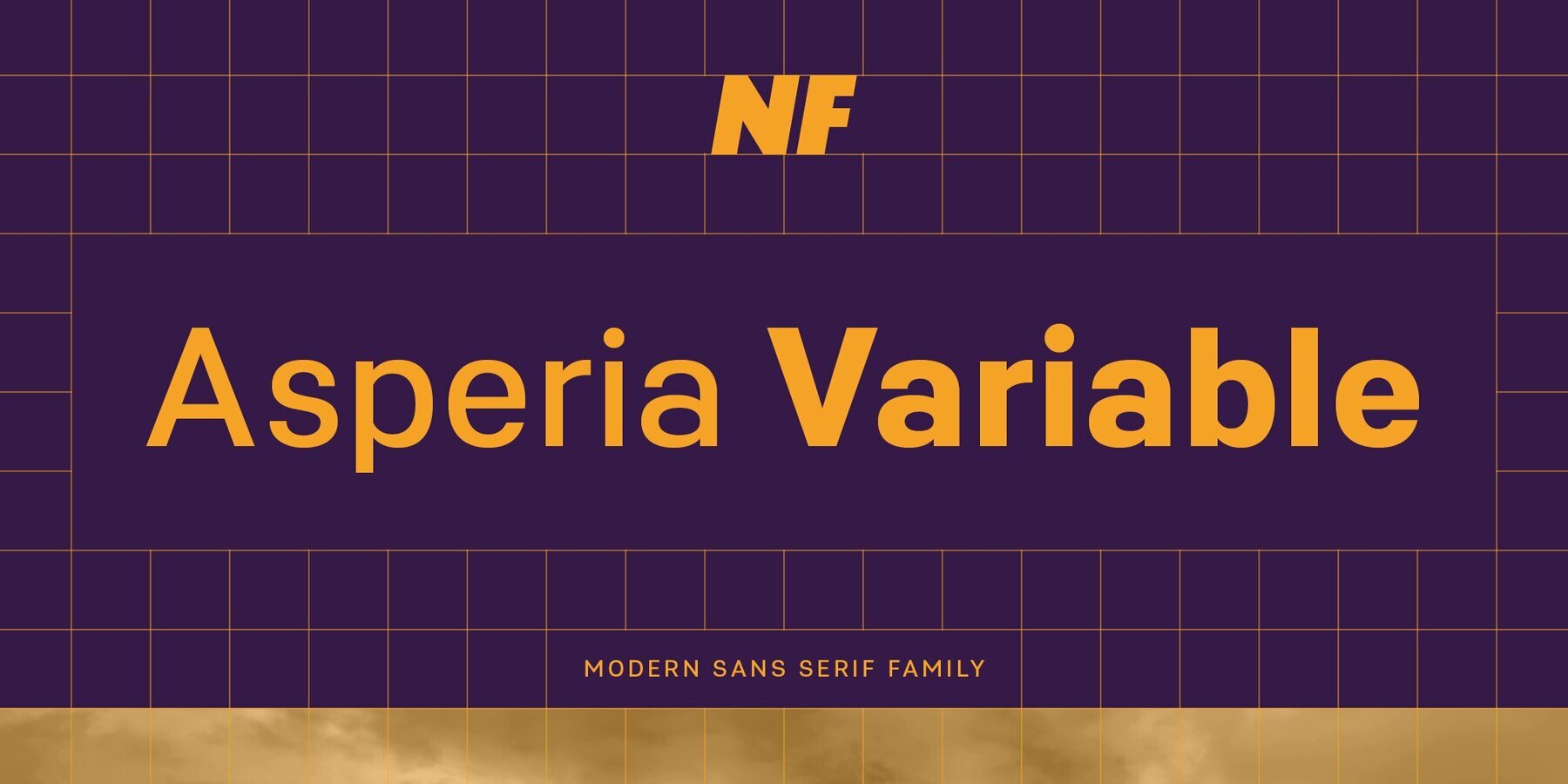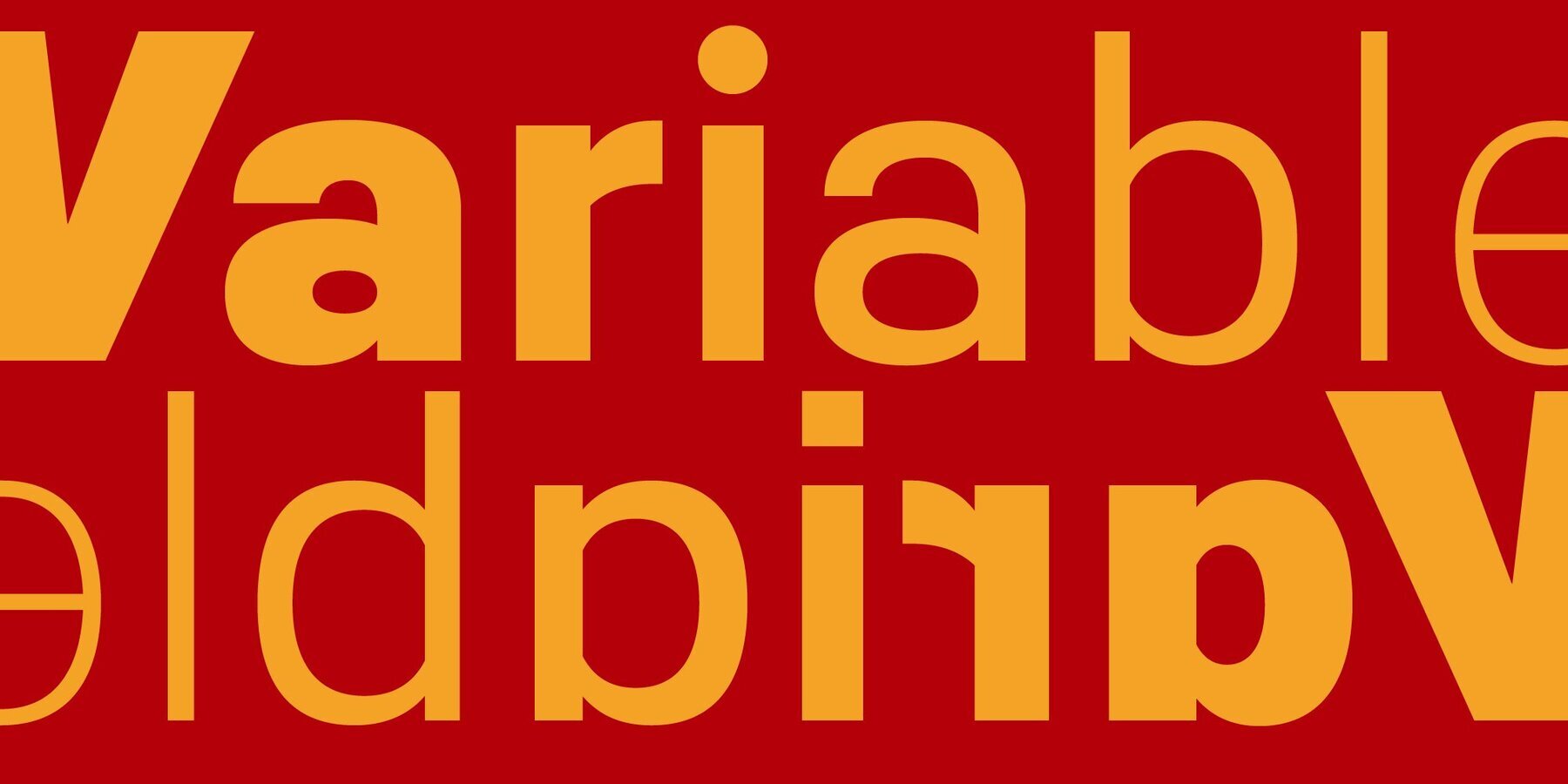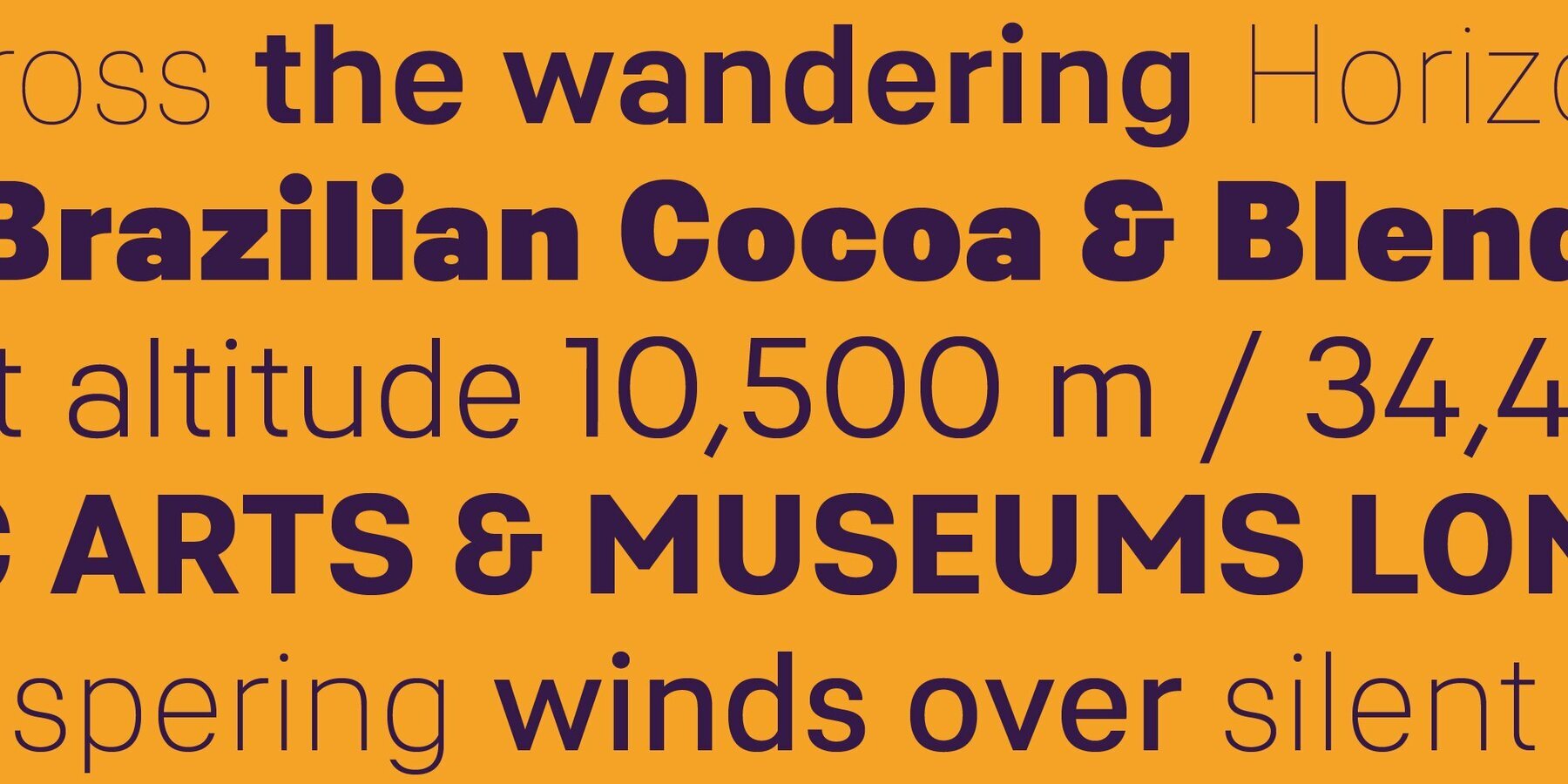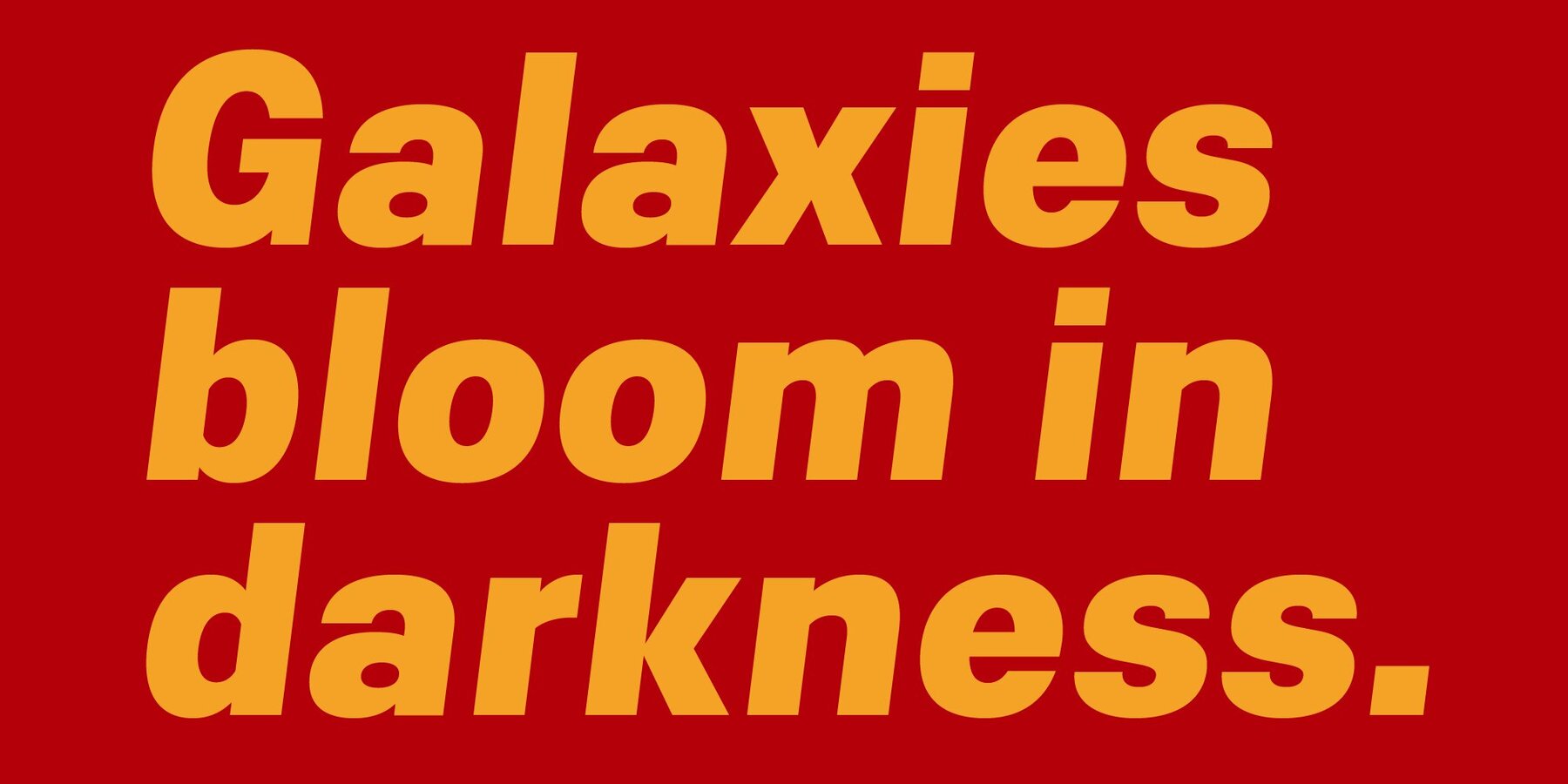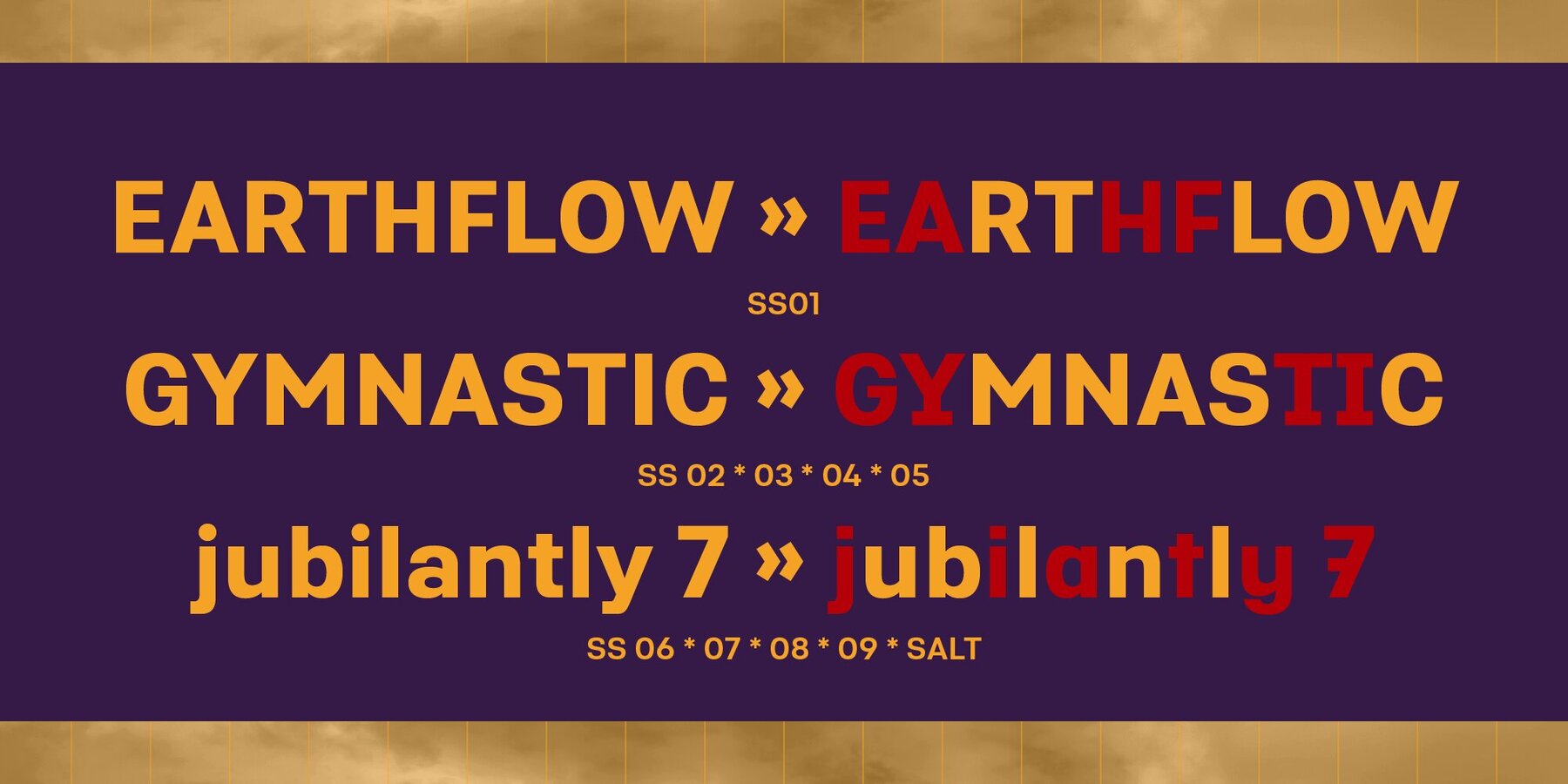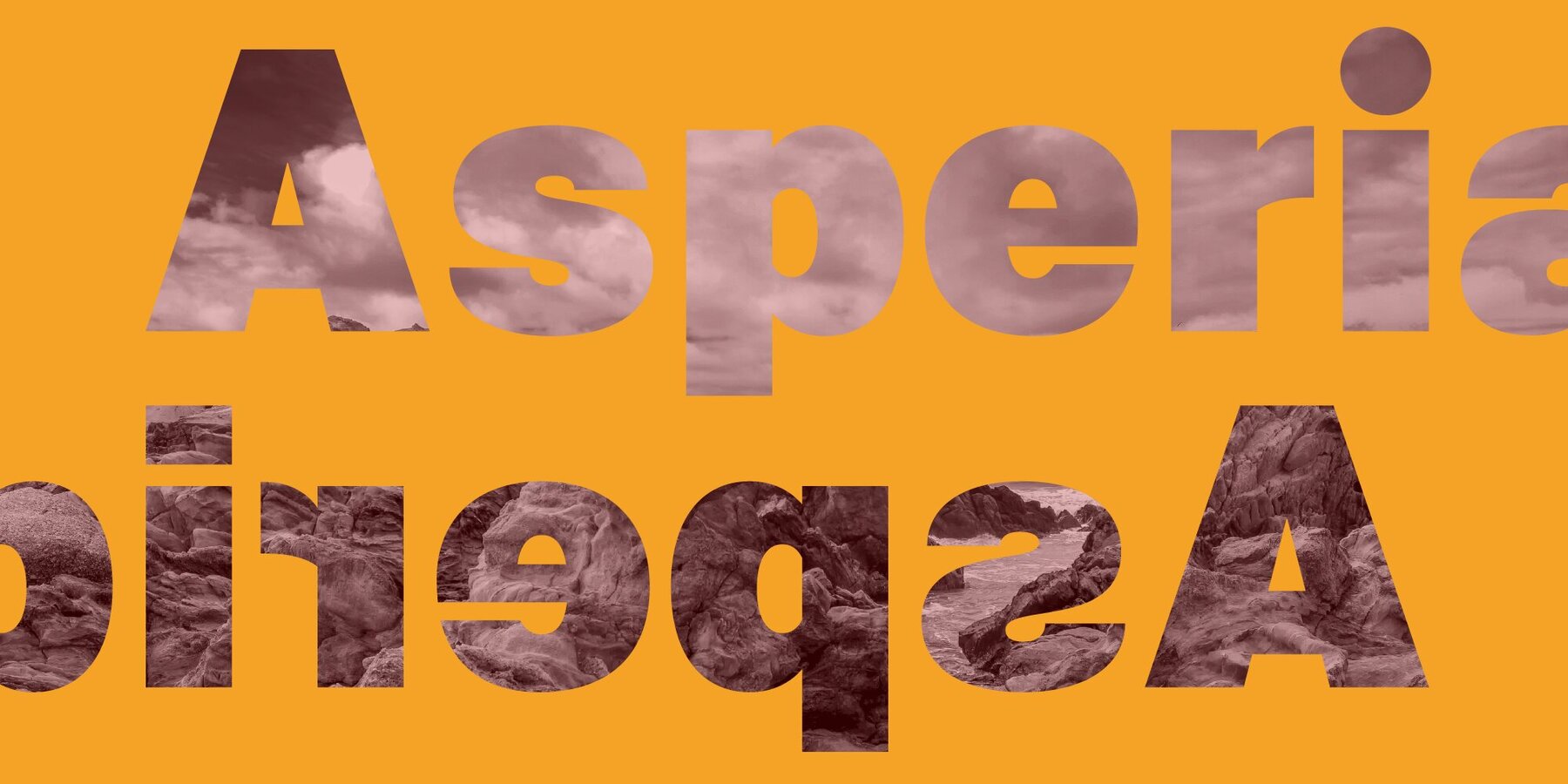
Asperia Variable Font
Asperia Variable
Asperia Variable is the versatile extension of the Asperia family, encompassing the complete spectrum of weights, from Thin to Black, with corresponding italics. This adaptable format offers designers precise control over weight and style, allowing for smooth transitions and meticulous adjustments to suit any creative requirement. This typeface features over 700 glyphs per style and a comprehensive set of OpenType features, ensuring extensive customizability. Ideal for web typography, dynamic branding, editorial layouts, or digital interfaces, Asperia Variable maintains the cohesive, modern aesthetic of its static counterpart, amplified by the flexibility and efficiency of the variable font format.Asperia Variable: A Dynamic Typeface for Every Design Need